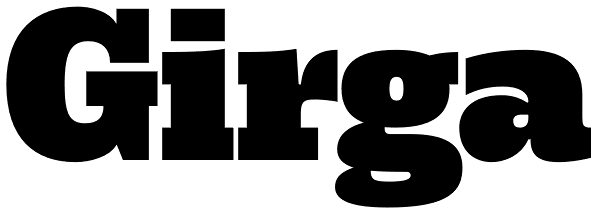
Girga
Triumphant, vigorous and strong. These were the keywords for the design of Girga, named after an Egyptian city in the Sohag Governorate. The power and strength of the Egyptian letterforms were balance with a few sans serif forms so the darkness of...